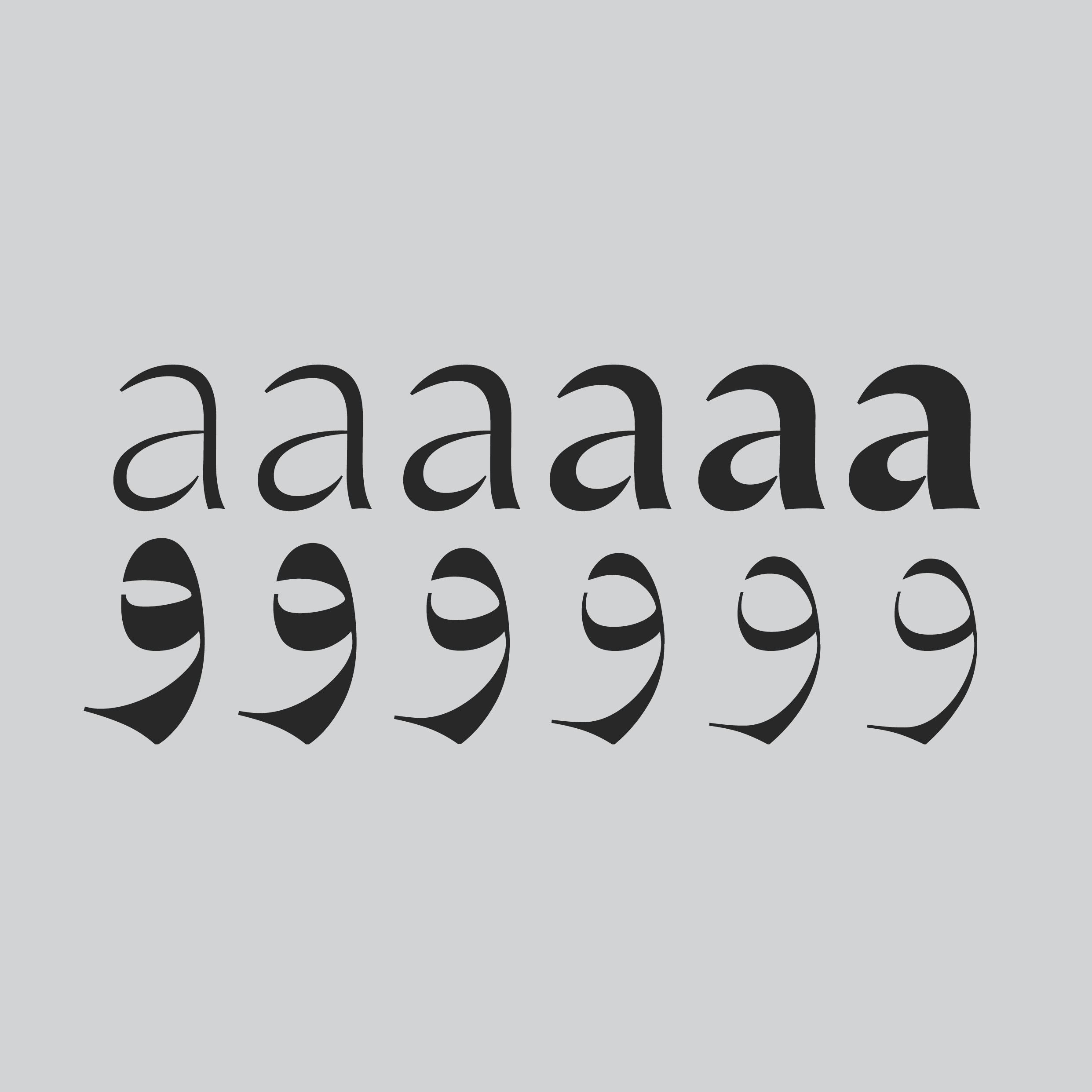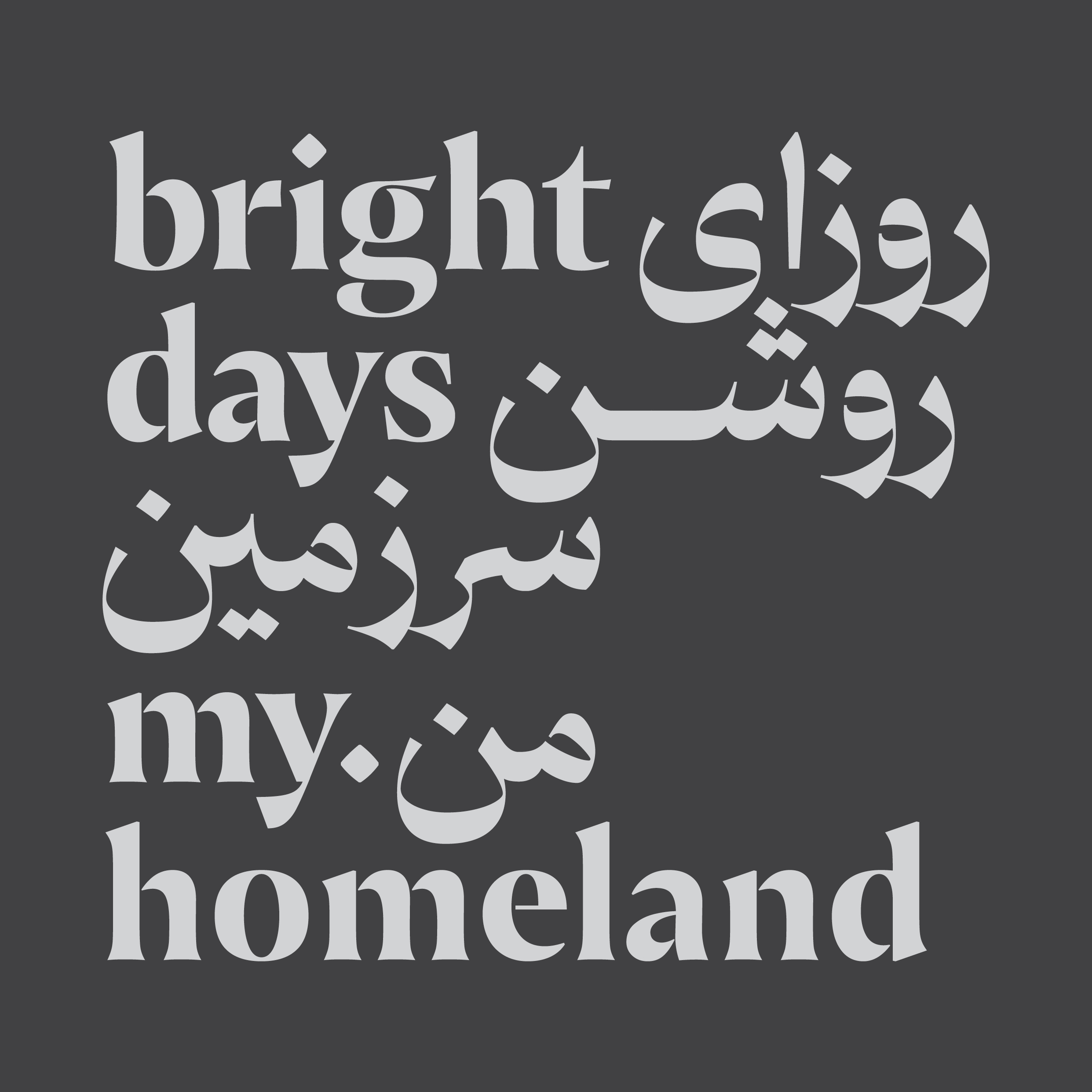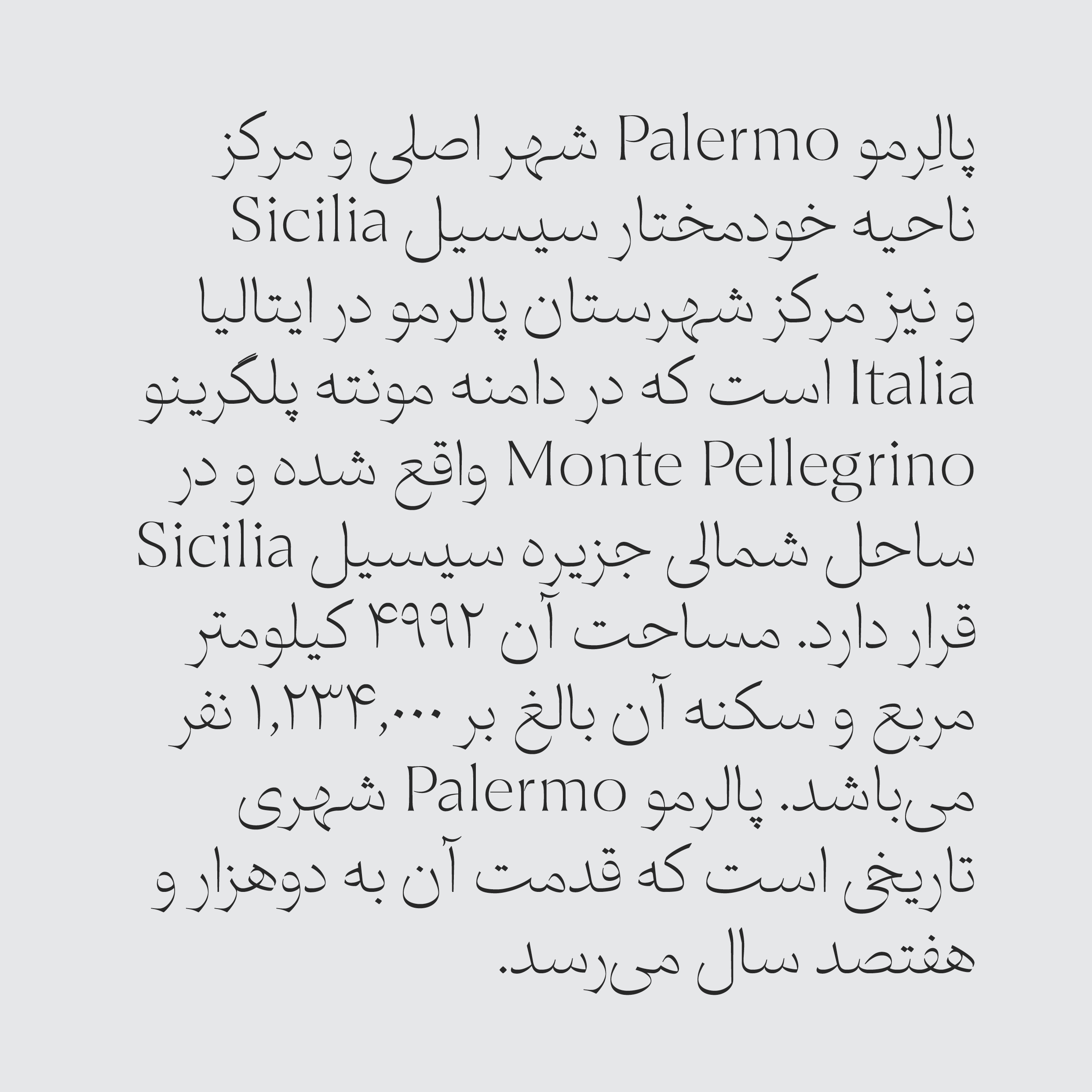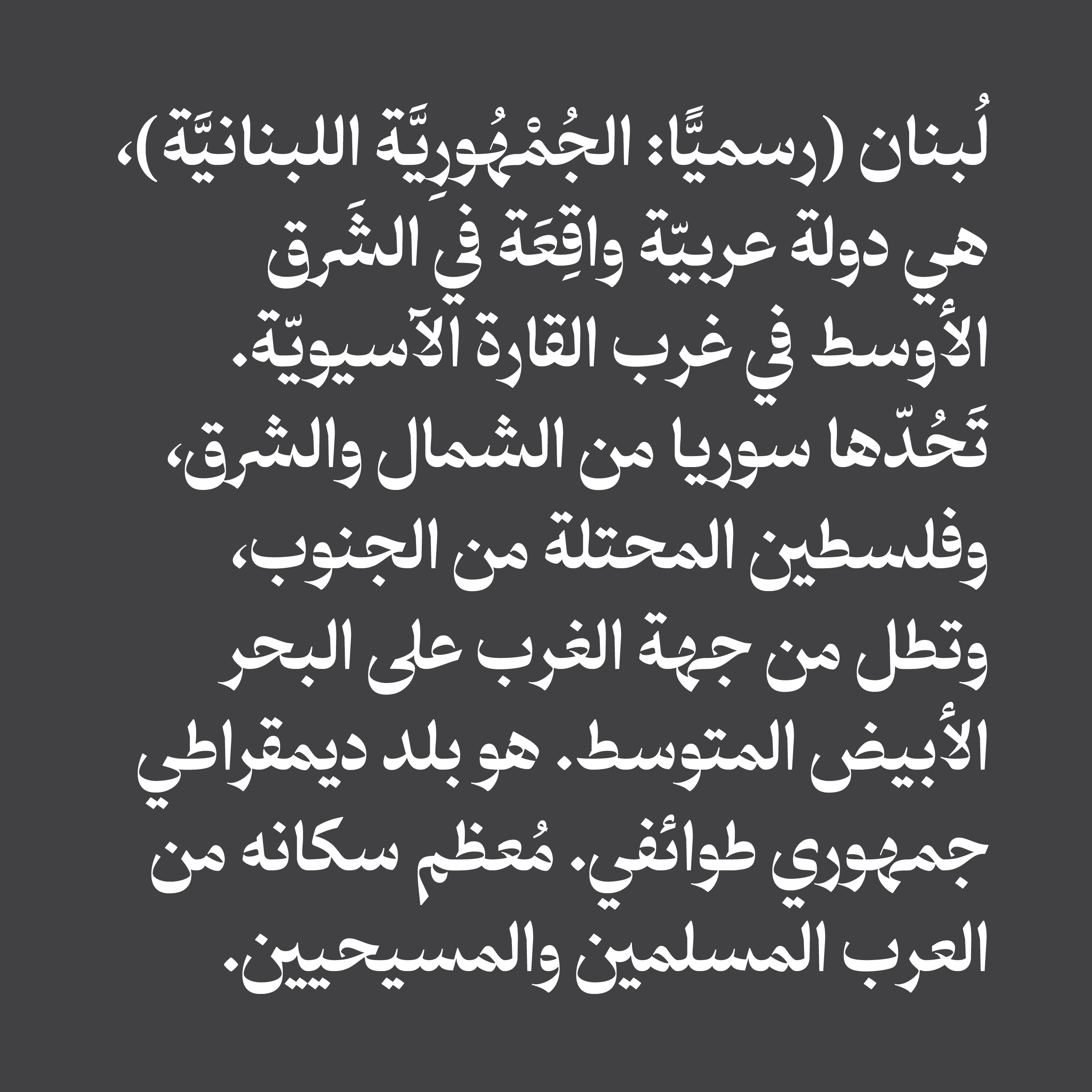
Roshan Multiscript Font Family
Roshan is a high contrast multiscript typeface with close connections to calligraphic traditions. While the Arabic is inspired by the rounded forms of Persian Naskh and Maghrebi writing styles, its Latin is incised, in contrast with the more common practice of pairing a serif typeface counterpart to a high contrast Arabic. This makes the two scripts even more distinct in a multiscript context.
Roshan comes in six weights ranging from Extralight to Bold. While it is intended for display use, it is also suitable for short blocks of text.